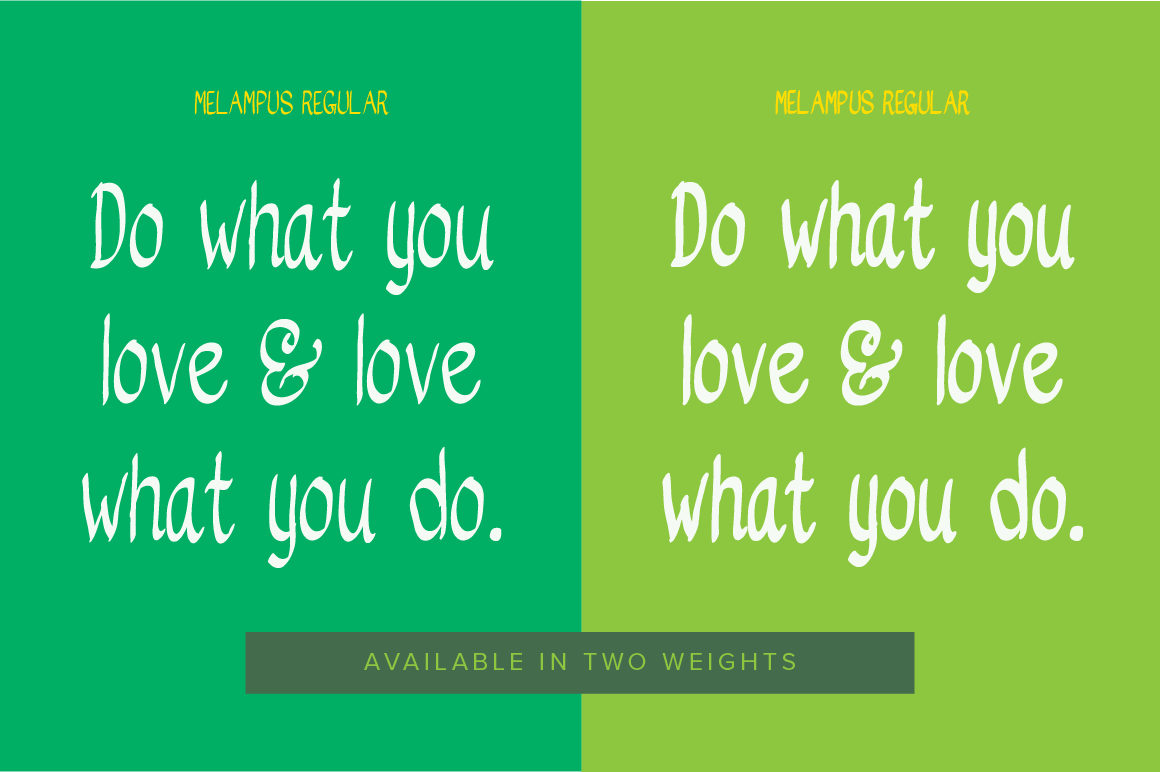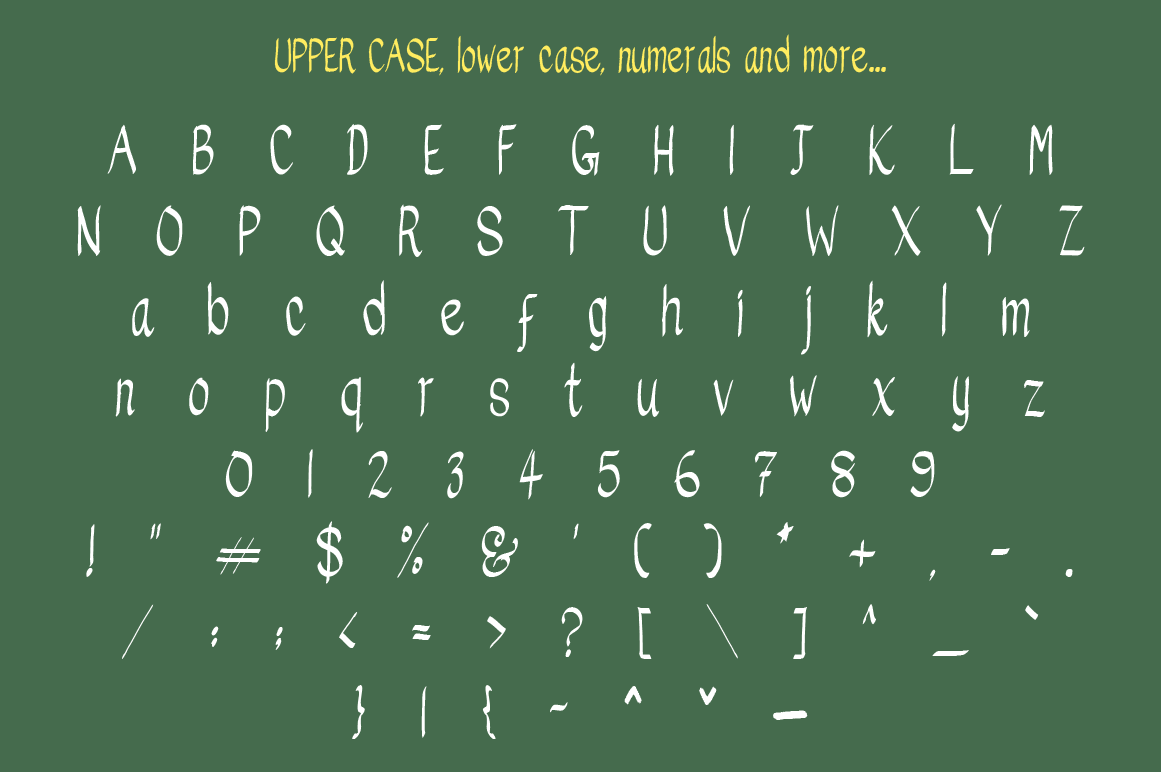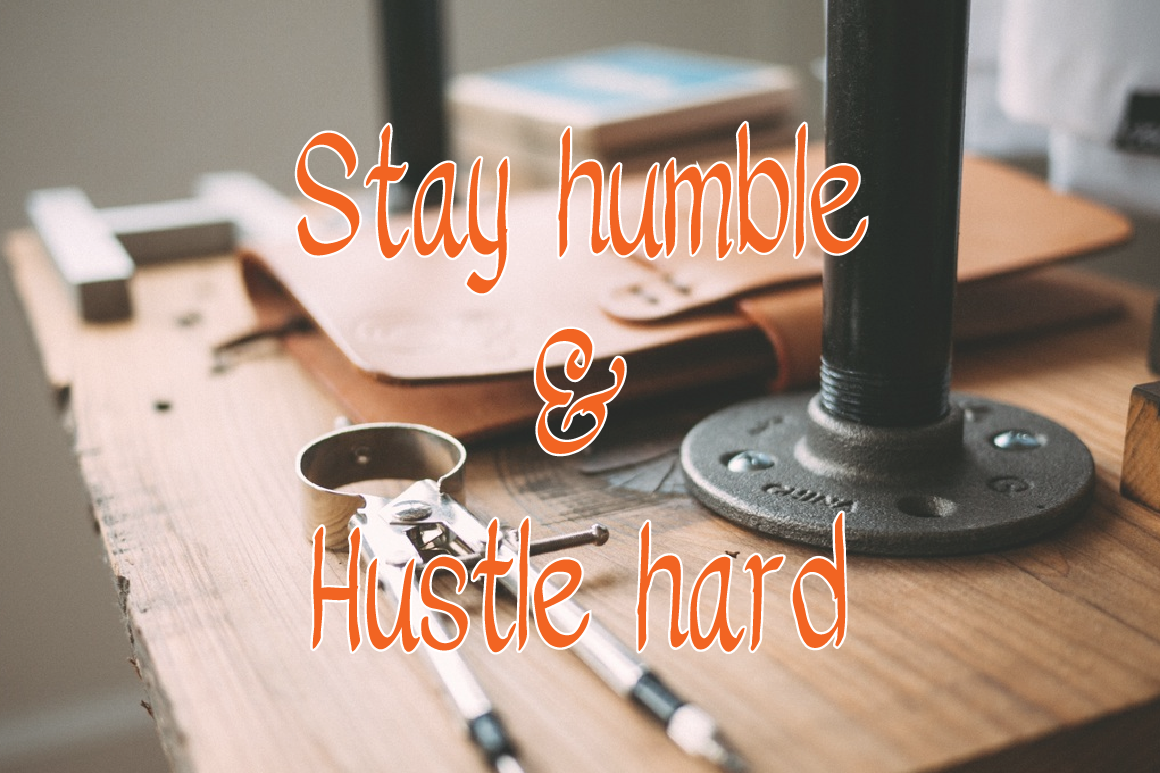
Melampus is a handmade sweet little font created with love. It comes in two different weights to choose from and included upper case, lower case, numerals and more glyphs...
You can use it for your invitations, labels, posters, comic, log sheet, letters and anything under the sun that involves typeface in it. Melampus fits all places and sync very well with your designs in no time. So why wait, go and grab this font, please.